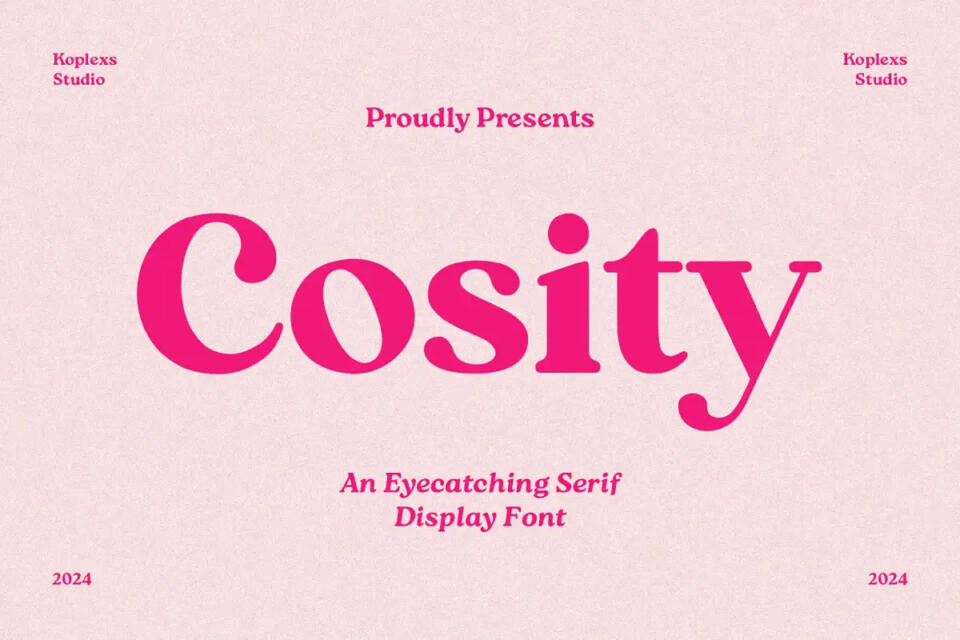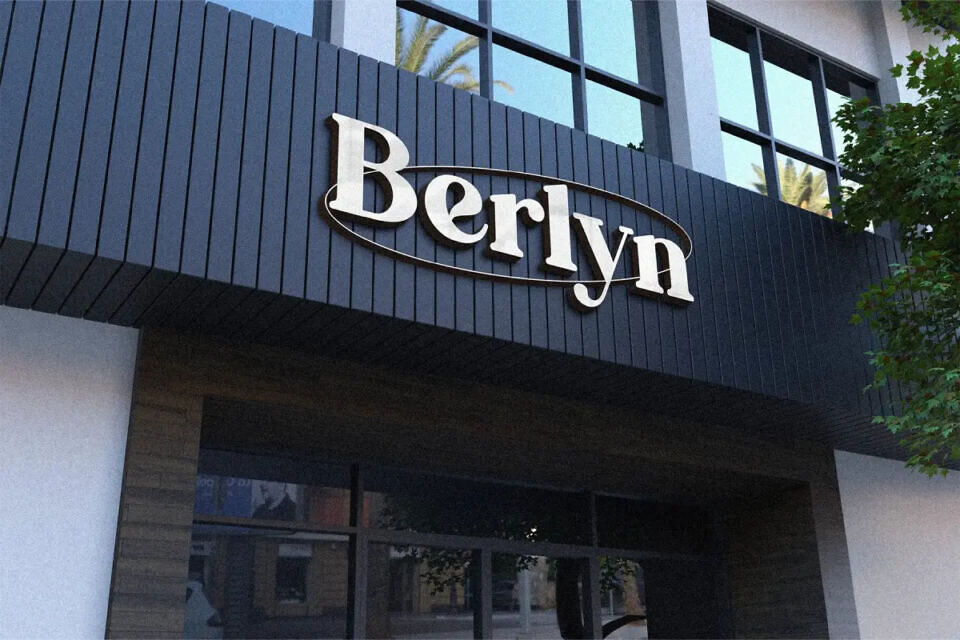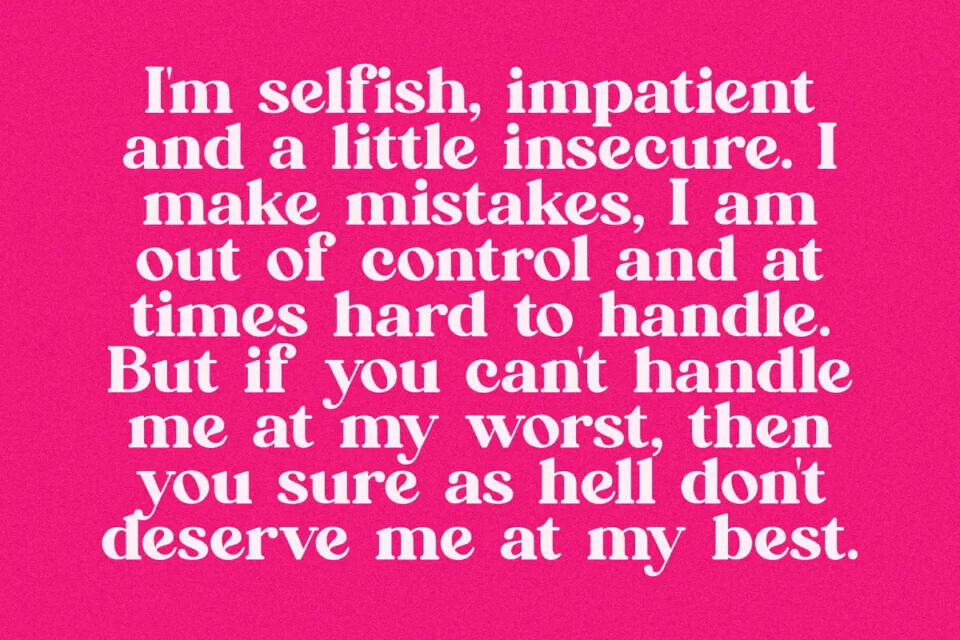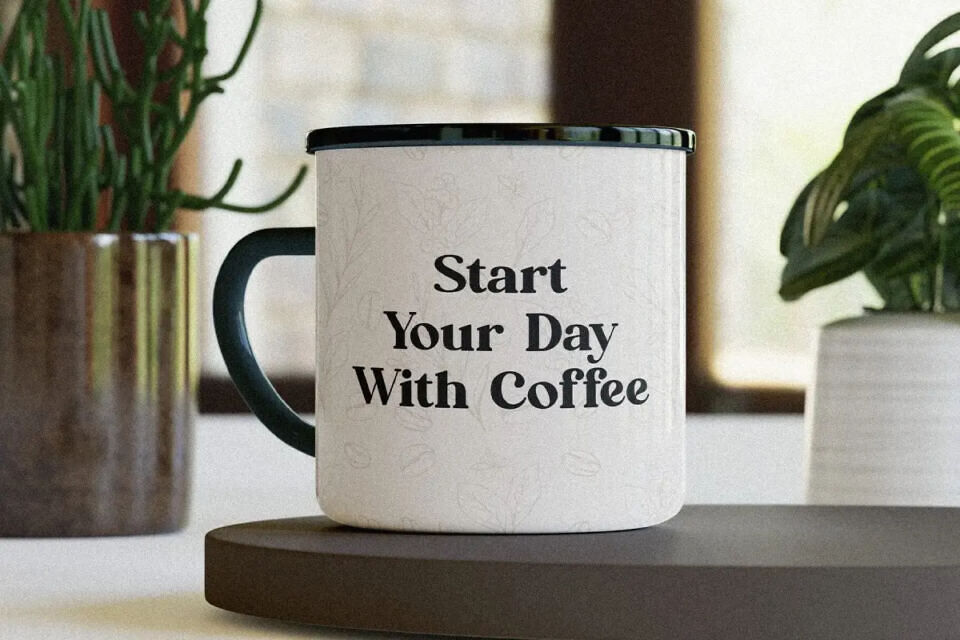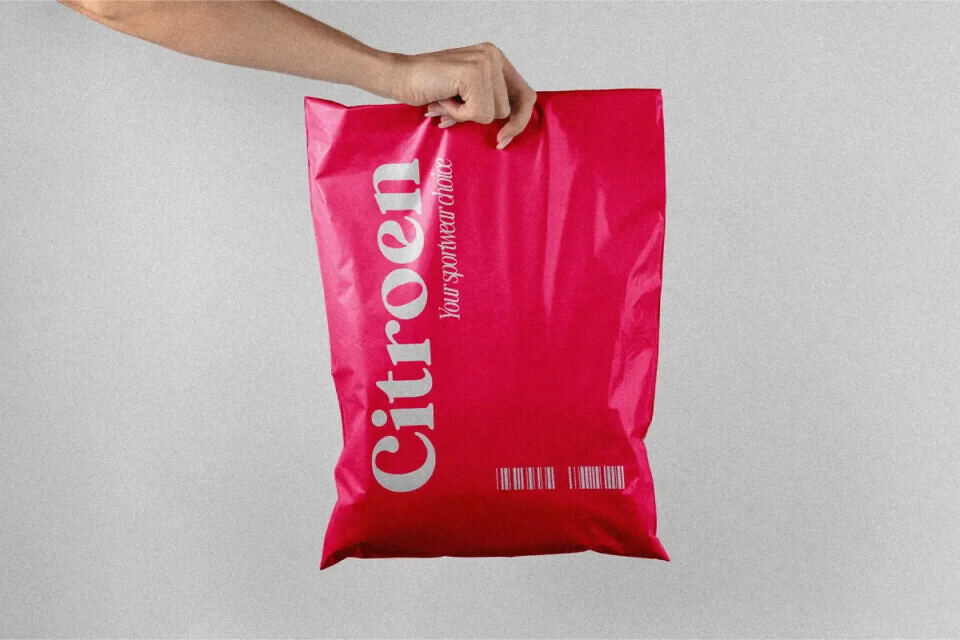
Cosity Font
Cosity Font is a serif font that blends timeless elegance with a bold modern touch, making it perfect for designers who want to stand out. This modern font is crafted with smooth curves, sharp details, and a strong personality—ideal as a branding font, cosmetic font, or even an aesthetic font for high-end visuals.
Its versatility allows it to shine as a logo font, headline font, and heading font, while maintaining the sophistication of an elegant font and the refinement of a luxury font. The bold strokes ensure visibility, making Cosity not only stylish but also practical for impactful typography.